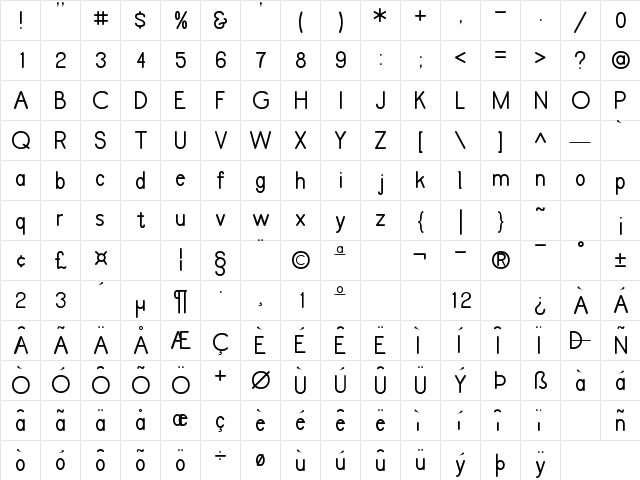
FC Basic Font Regular
Design Context for FC Basic Font Typeface
FC Basic Font offers clean, dependable letterforms without strong stylistic allegiance, making it a practical choice for designers who need flexibility.
Pro Tip: Pair FC Basic Font with a font of contrasting weight or personality to build a more expressive typographic hierarchy.